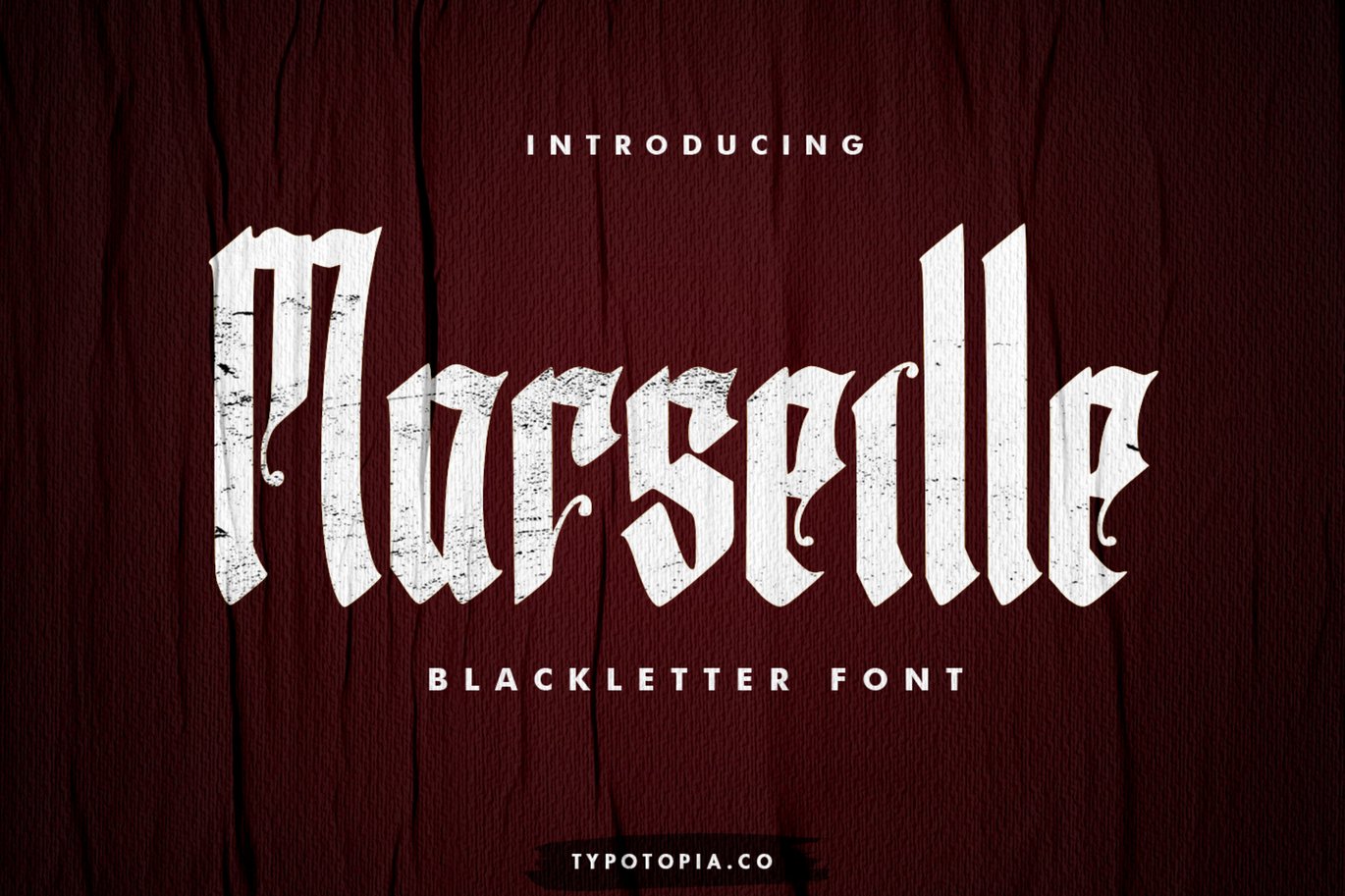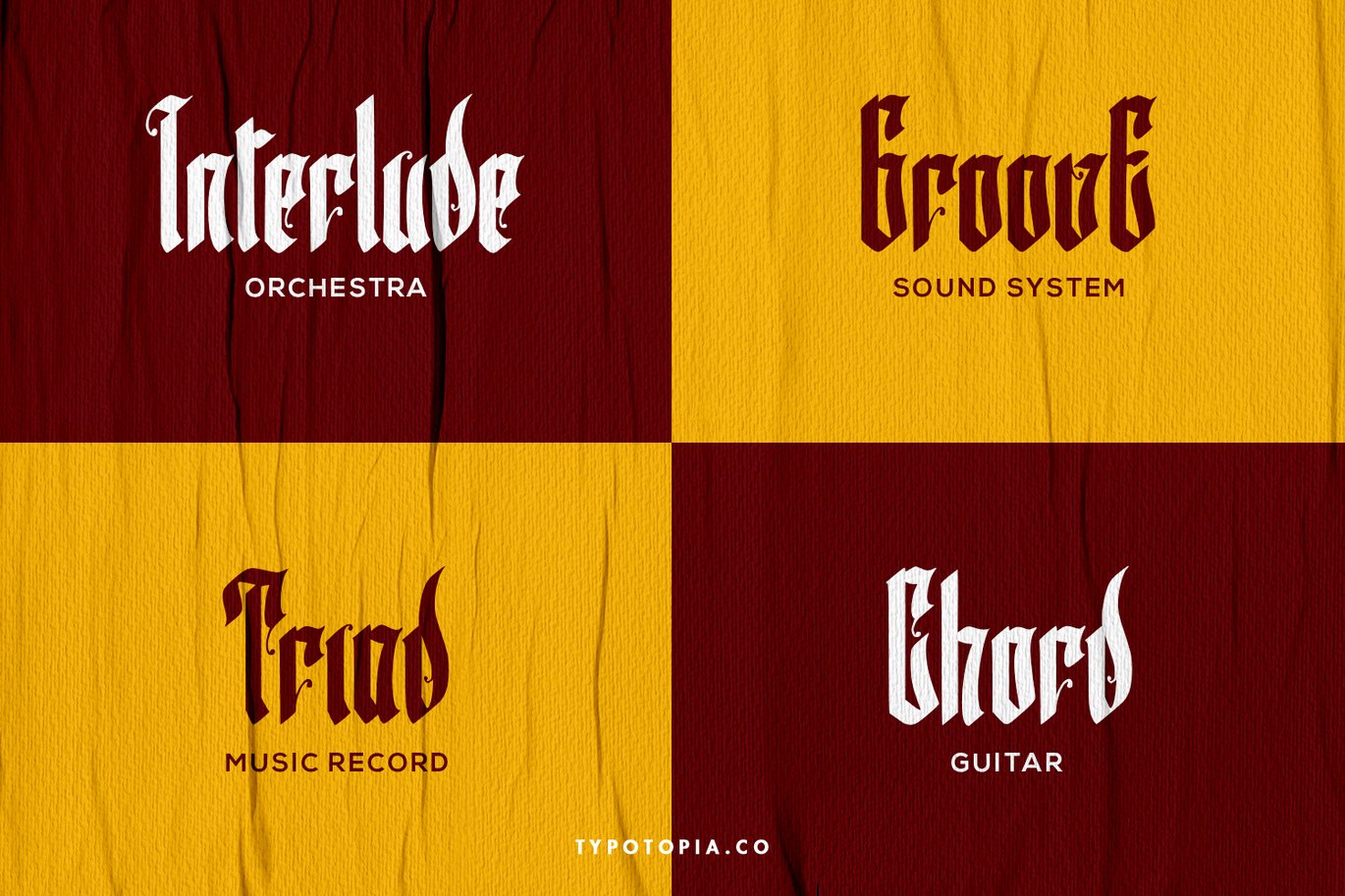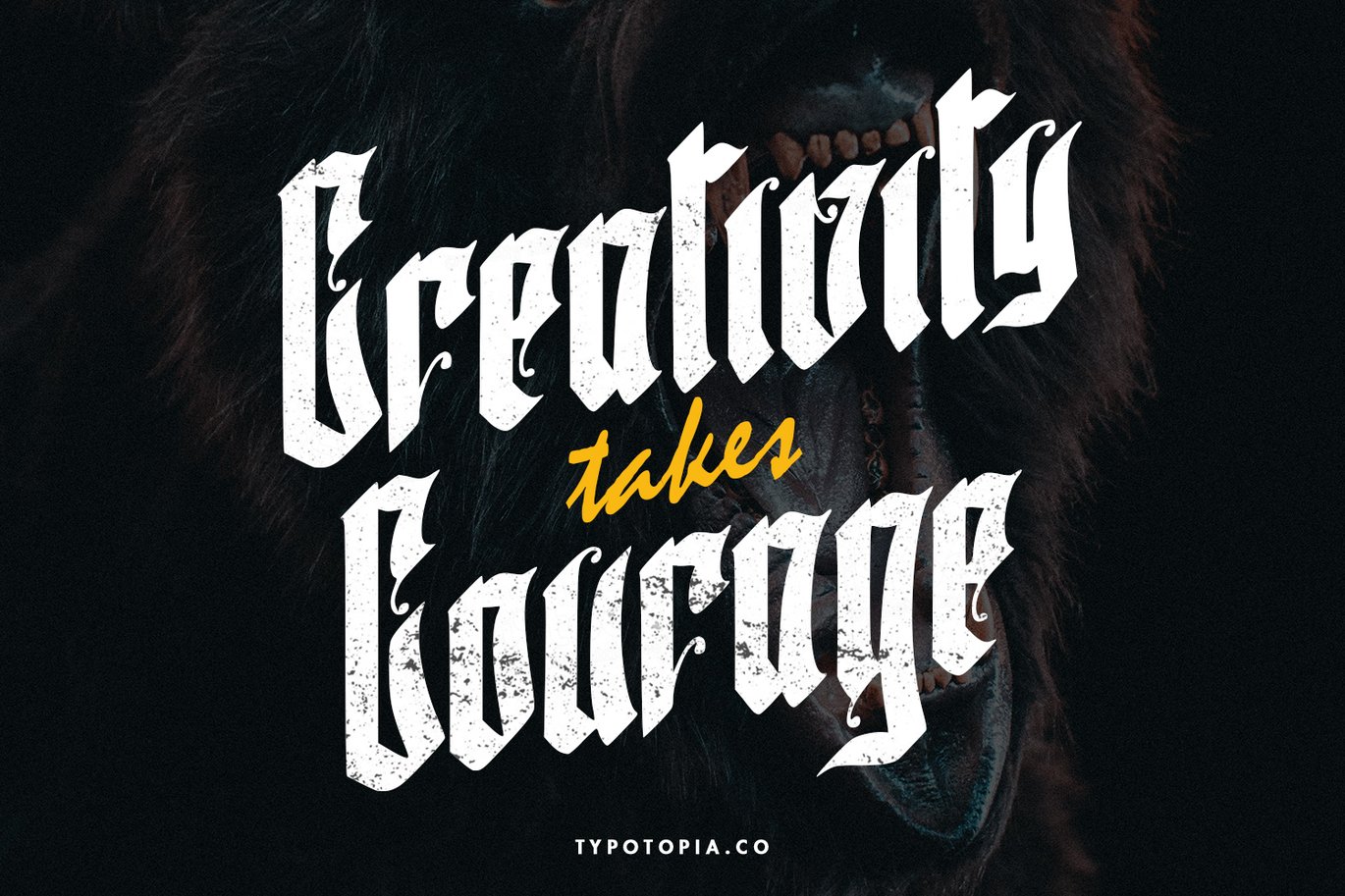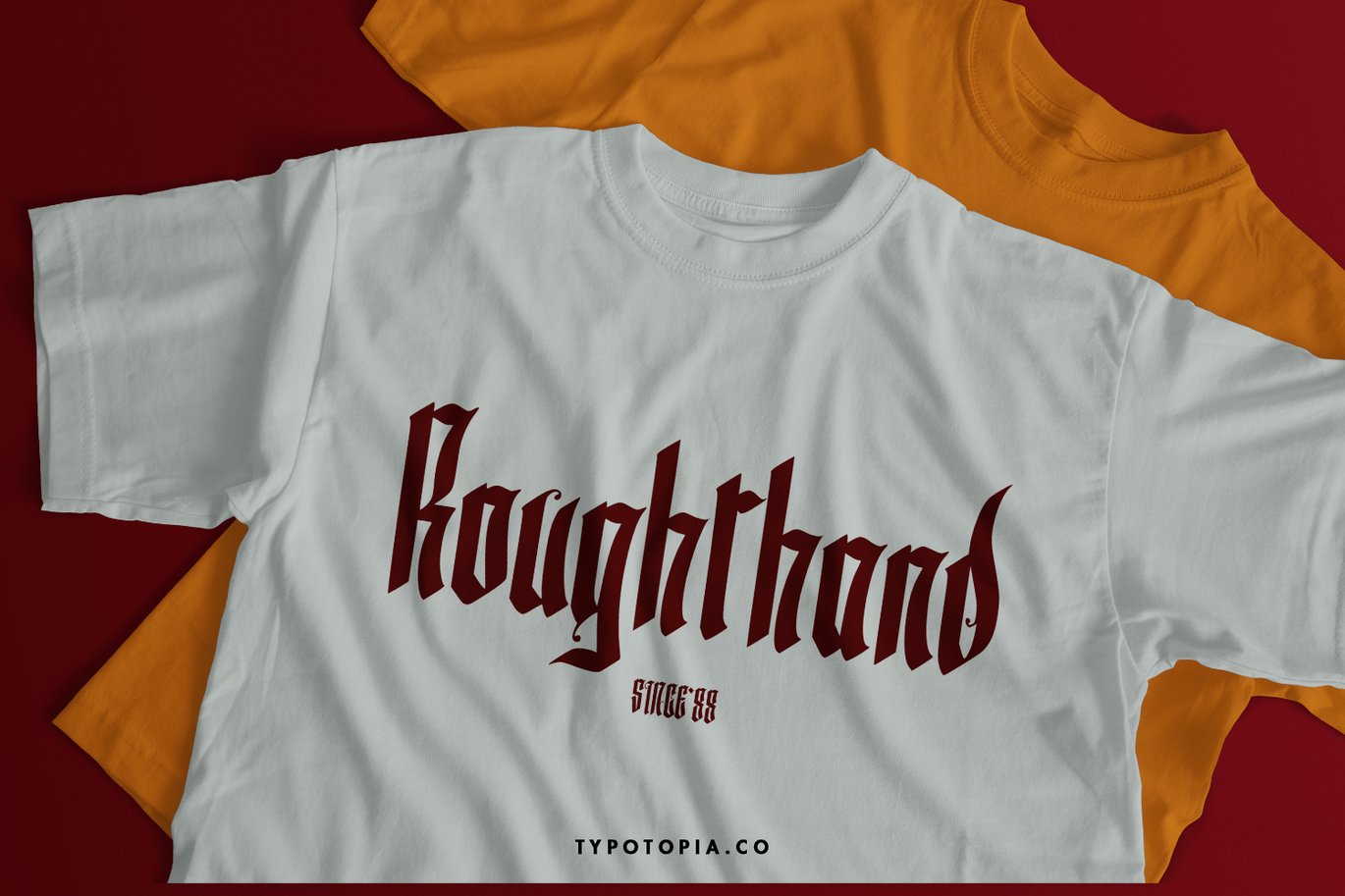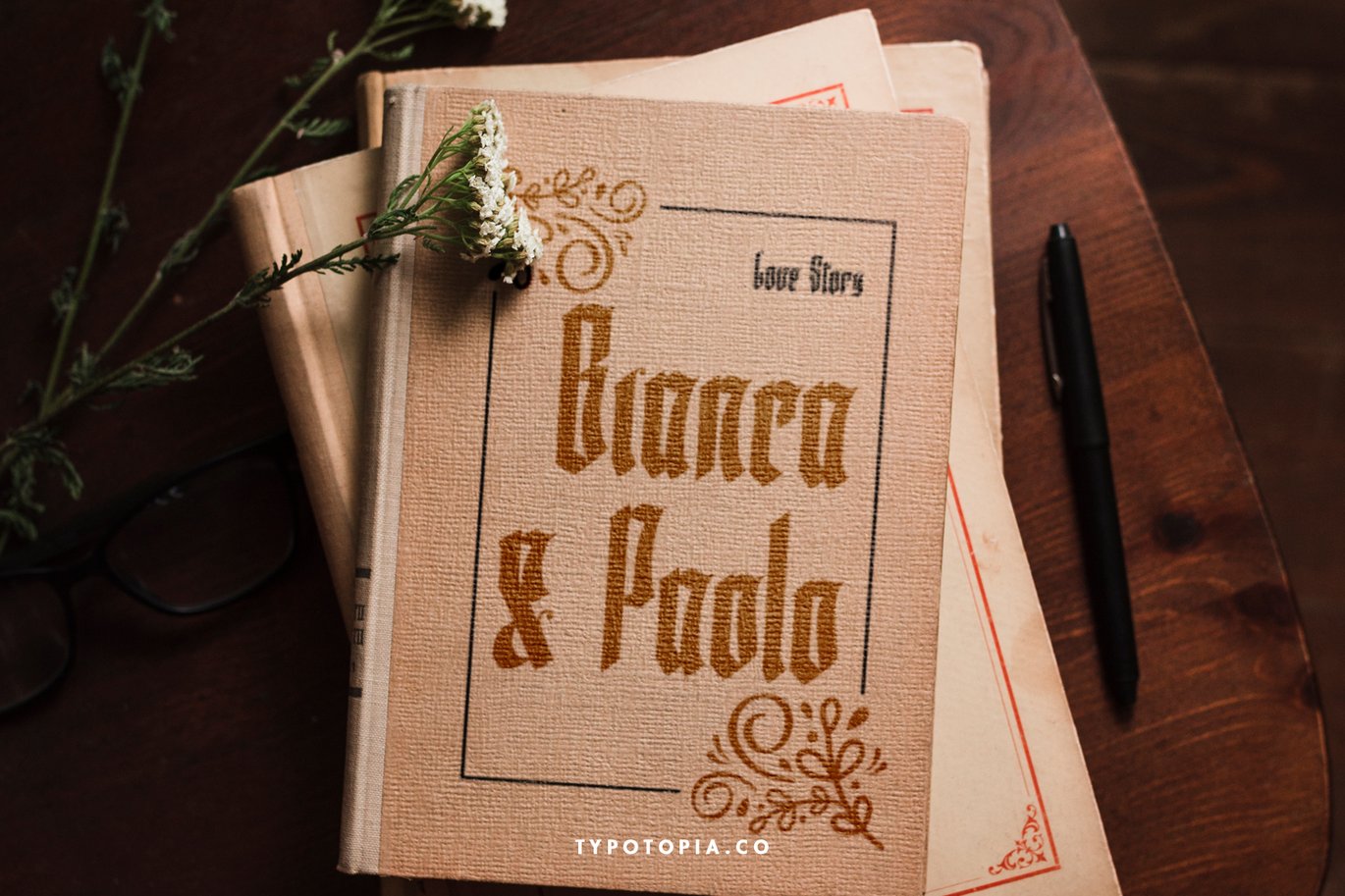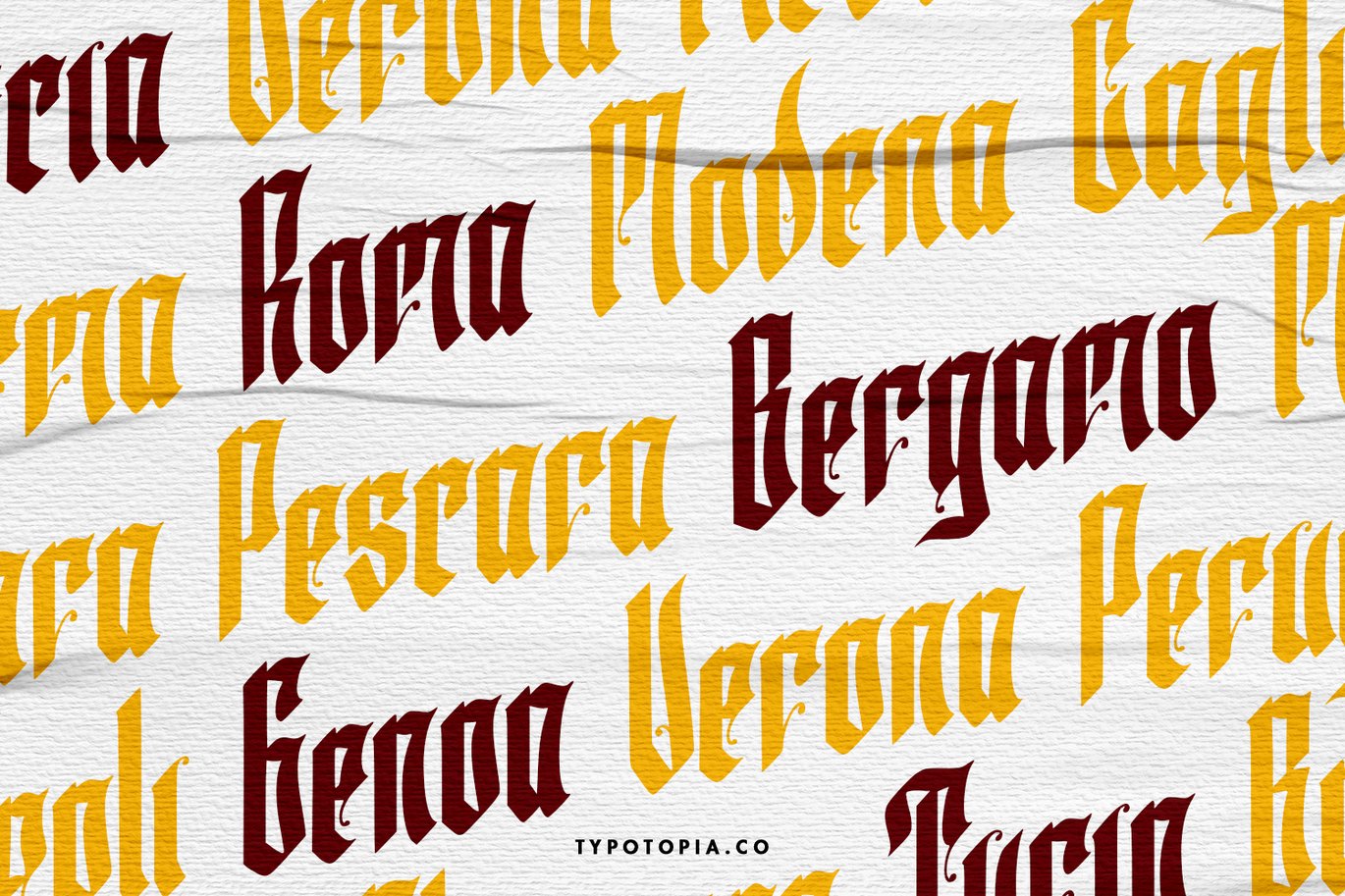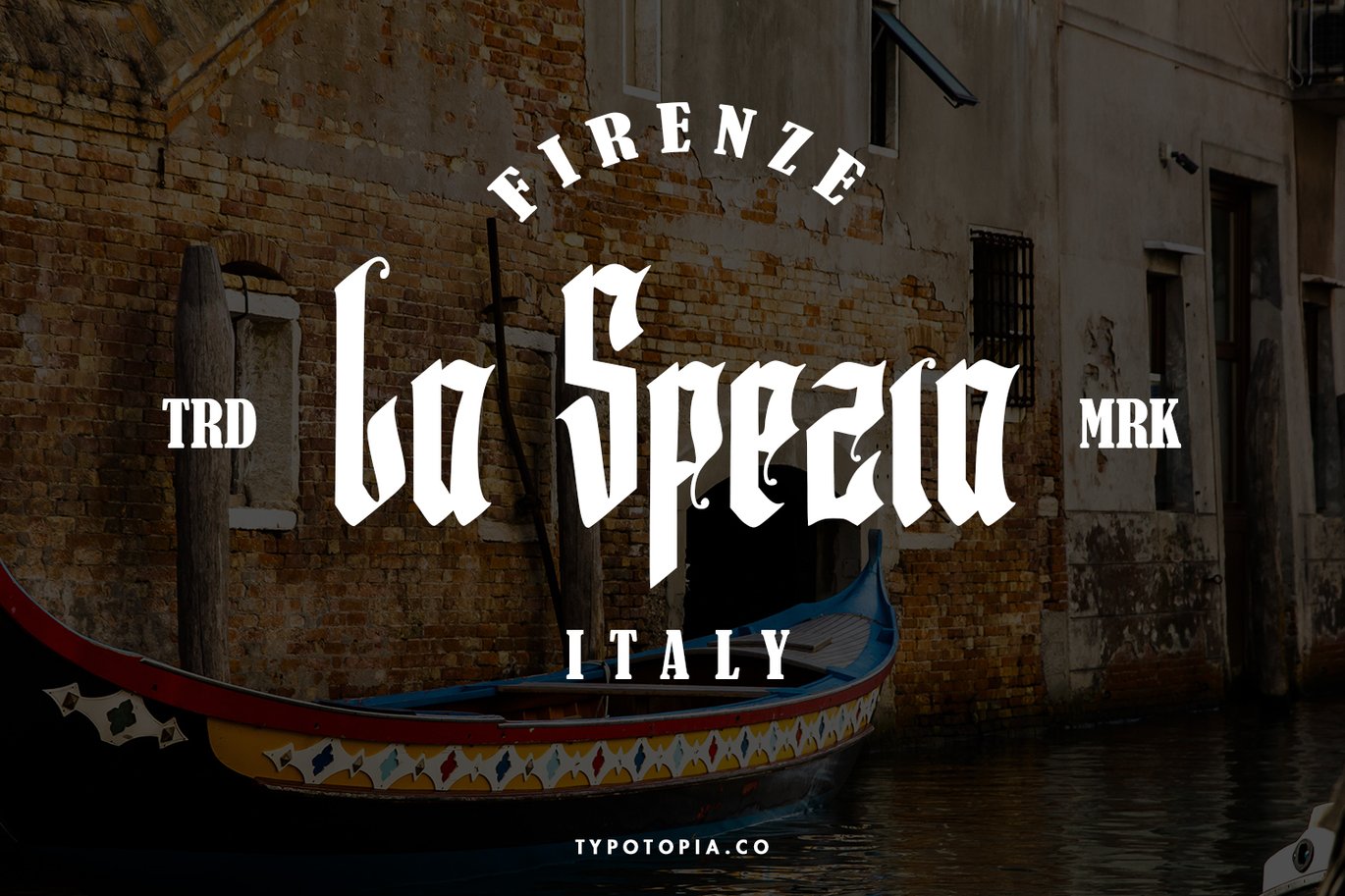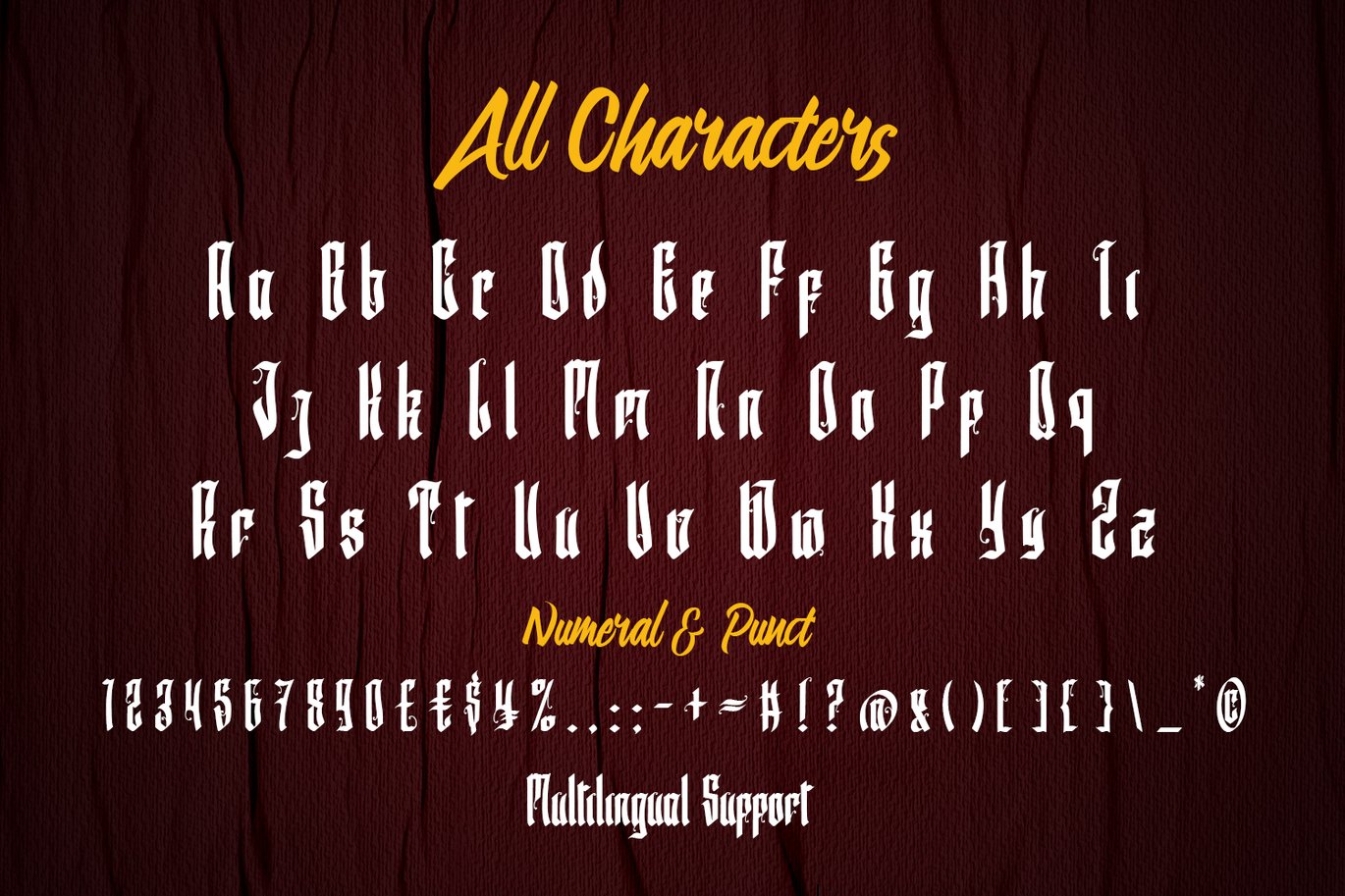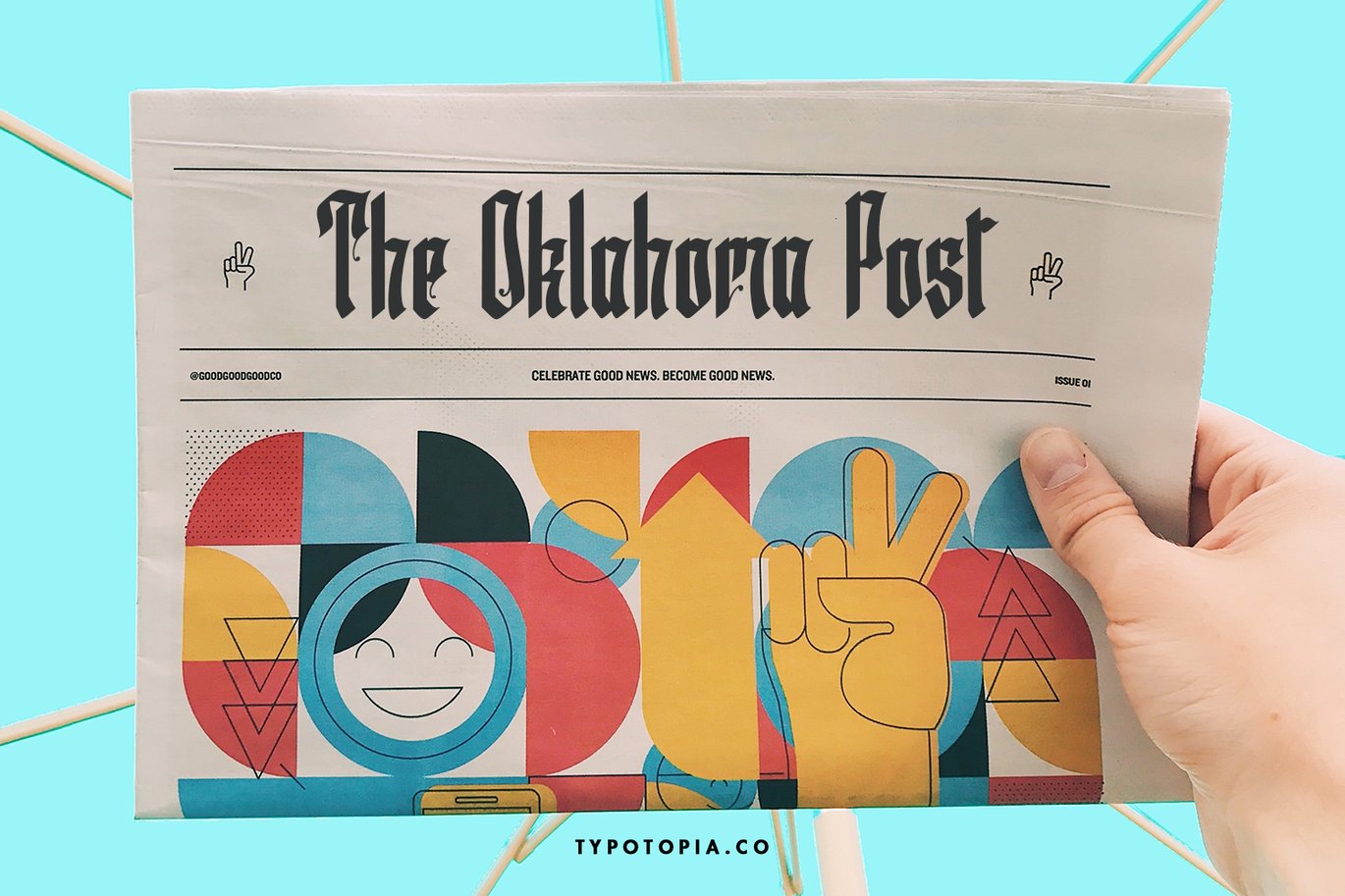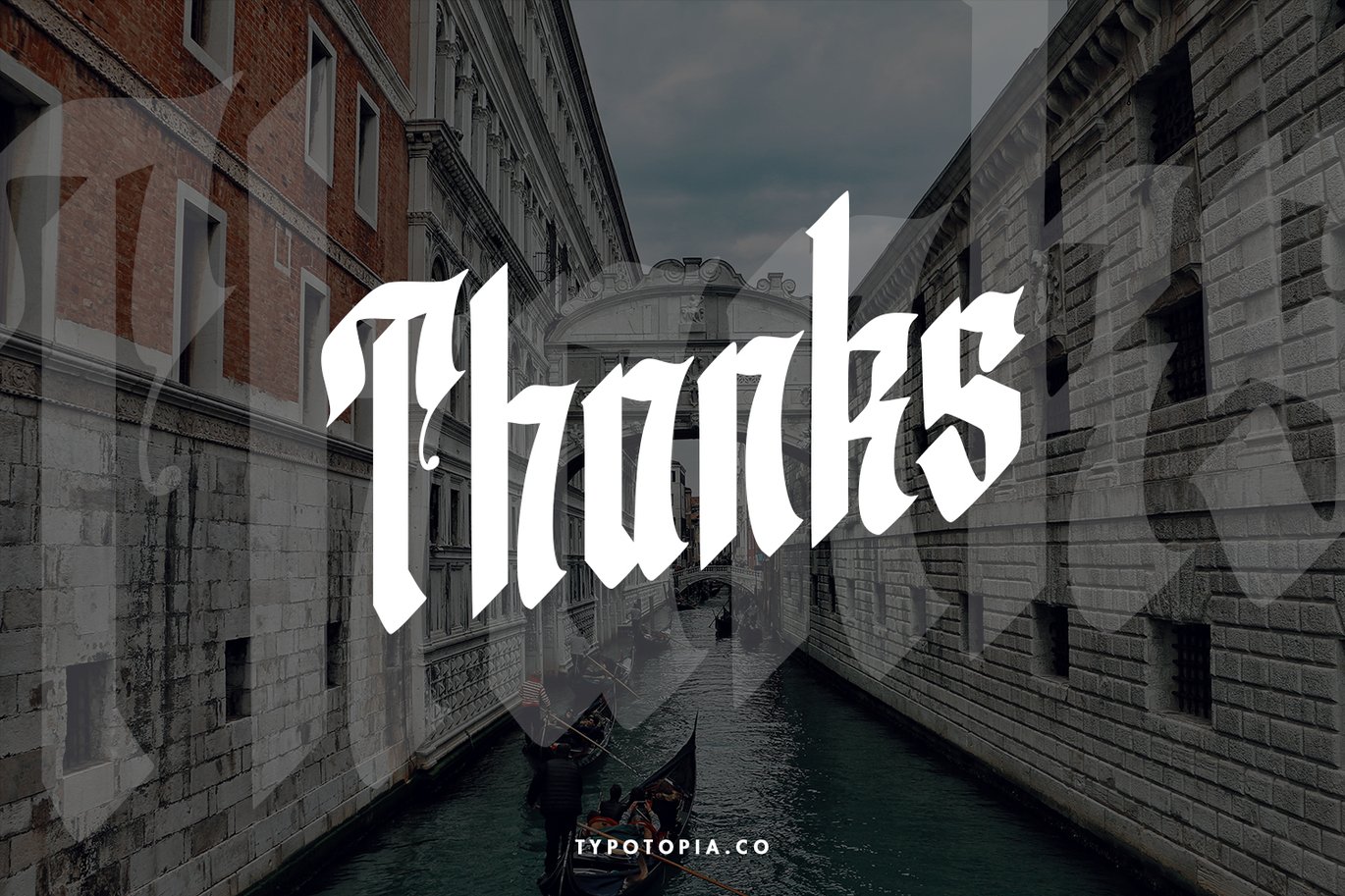
Marseille – Blackletter Font
Introducing Marseille – Blackletter Font. This perfect for the purposes of designing templates, brochures, videos, advertising branding, logos and more.